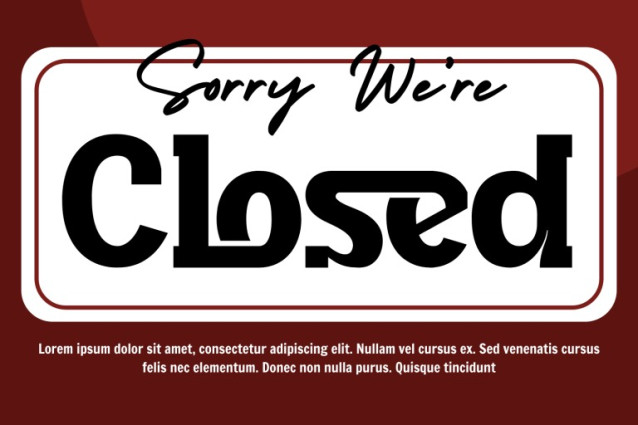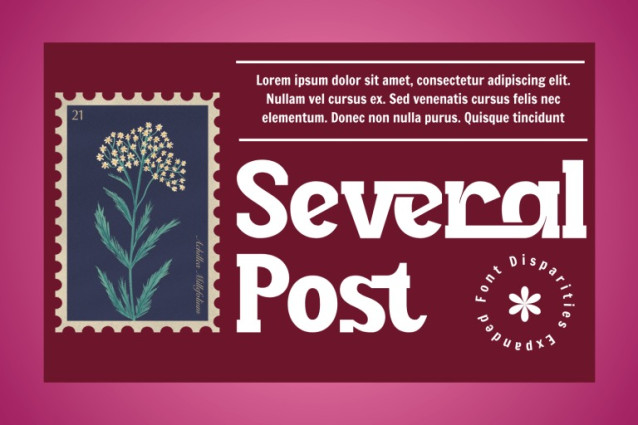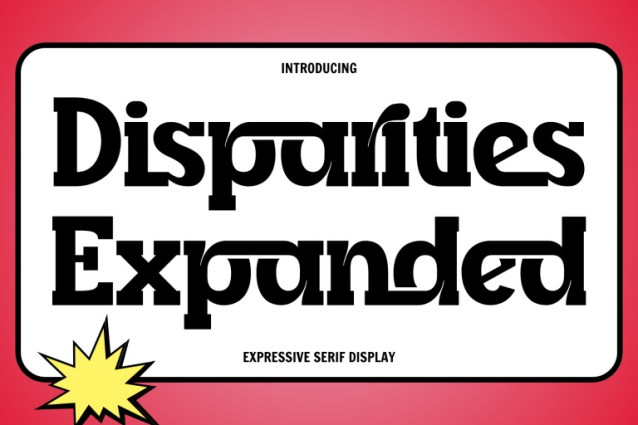
Disparities Expanded Font
Disparities Expanded – Slab Serif Font – Modern Slab Serif Display Font, a bold modern slab serif display font designed to deliver strong visual impact with a contemporary editorial feel. This typeface combines thick, confident strokes with distinctive slab serifs and expressive curves, creating a unique balance between structure and fluidity. The bold letterforms and slightly playful details give the font a powerful yet refined personality. Disparities Expanded stands out with its creative ligature system and unconventional character connections, adding rhythm and personality to headlines and large-scale typography. The font is ideal for editorial layouts, branding, posters, magazine titles, advertising, packaging, and logo design where a modern, expressive serif style is required.
Uppercase & Lowercase Letters
Around 100 Special Ligatures & Alternates
Accented Characters for multilingual support
🔤About 100 ligatures combined with Stylistic Alternates Font: